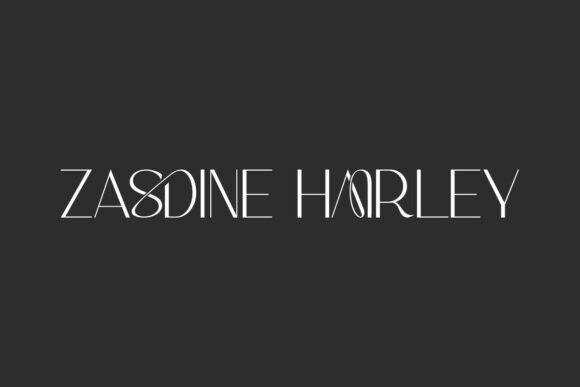
Zasdine Hairley Font
Designer: vintype
Zasdine Hairley Font is a modern sans-serif display font with an elegant touch. This font has unique characteristics with thin line elements and artistic details that give a luxurious and classy impression. This font will be perfect for any project, such as advertisement, blog, branding, gift box, invitation, label, layout design, quotes, signboard, template design, website, and many more.